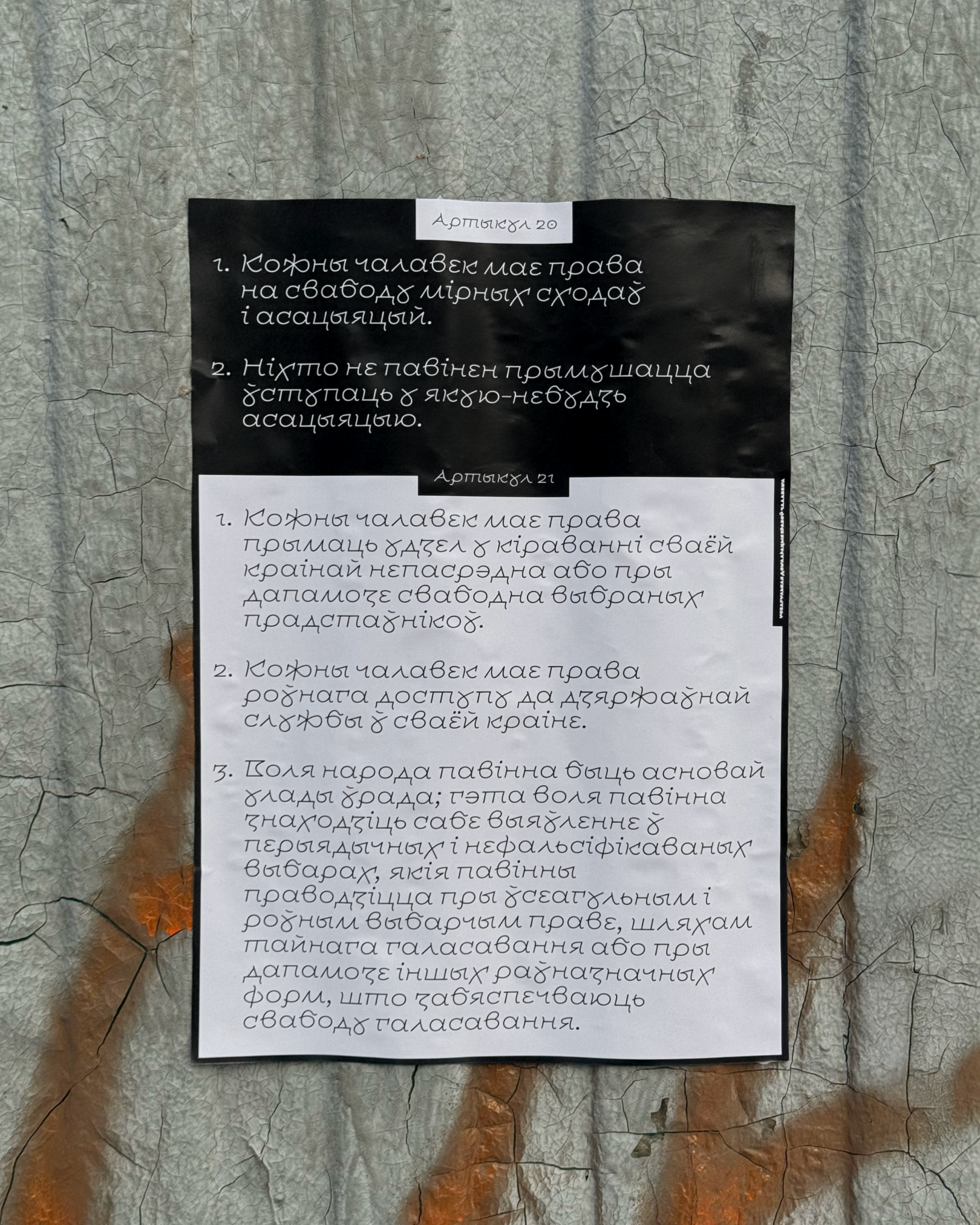
Prepis is Luboslav Boyanov’s graduation project from TypeMedia programme at the Royal Academy of Art, The Hague. Inspired by medieval Cyrillic manuscripts, the typeface reinterprets the traditional Ustav and Skoropis styles that, much like Blackletter, have in recent years been co-opted by nationalist and far-right groups.
With its playful, contemporary forms, Prepis seeks to counter these negative associations and present Ustav in a fresh, optimistic light. By reshaping its visual tone, the project aims to restore the historical richness of these scripts and reopen them to new, positive cultural contexts.